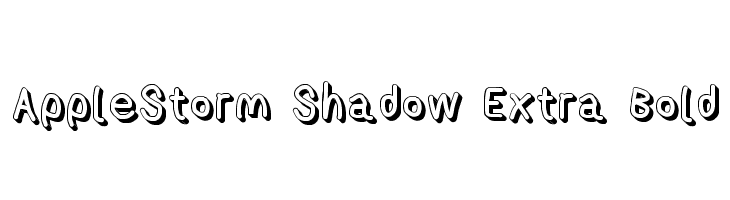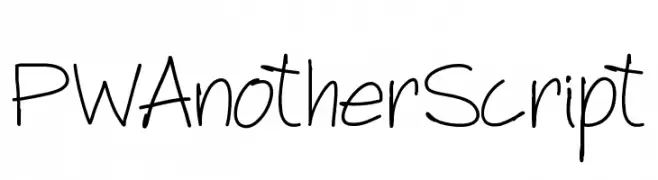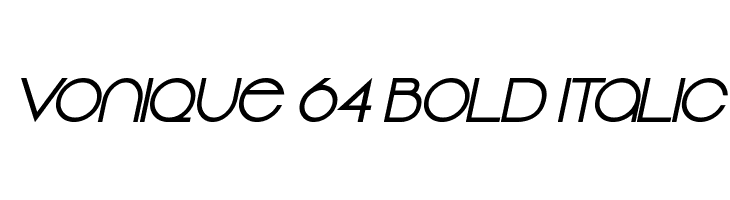
( Fonts by Andi Moz )
Decorative font with a mix of tall uppercase and cursive lowercase letters.
( Fonts by www.pia-frauss.de )
An ornate and decorative font with intricate loops and flourishes.
( Fonts by Em Nazar )
A playful, bold font with dotted patterns and irregular shapes, perfect for creative projects.
( Fonts by Khurasan )
A playful, bold font with rounded, bubbly characters.
A bold, italicized font with a dynamic and futuristic style.
A bold, expressive handwritten font with dynamic strokes.
A whimsical font with uppercase letters encased in angelic bear designs.